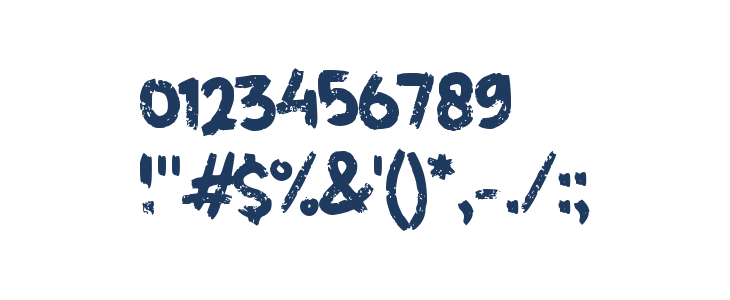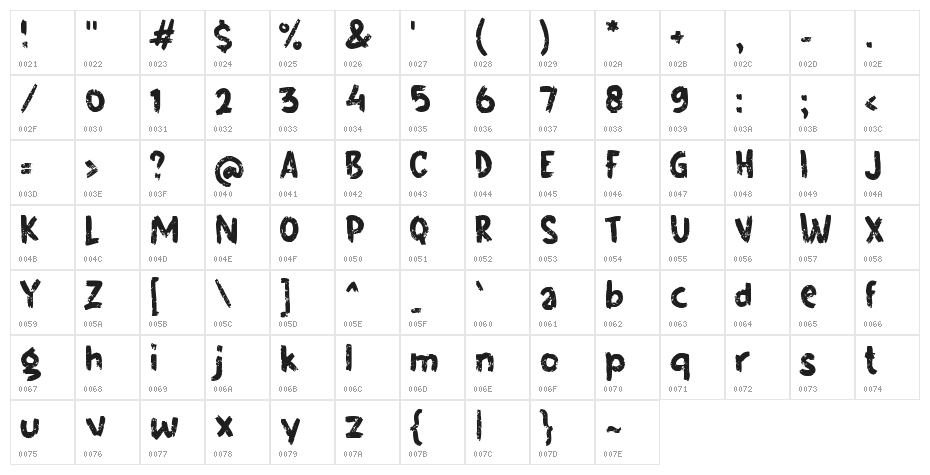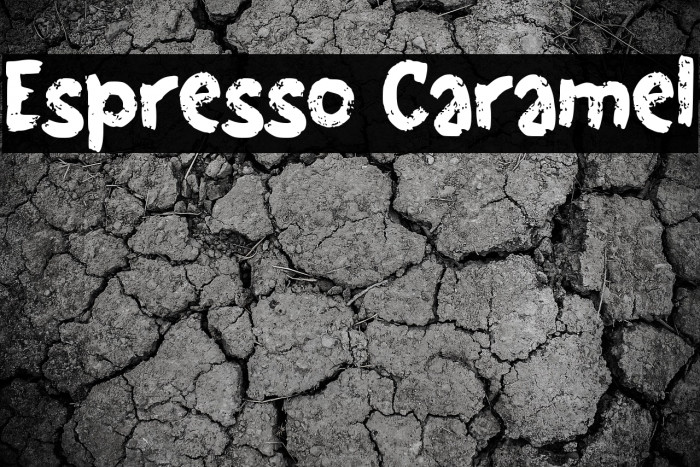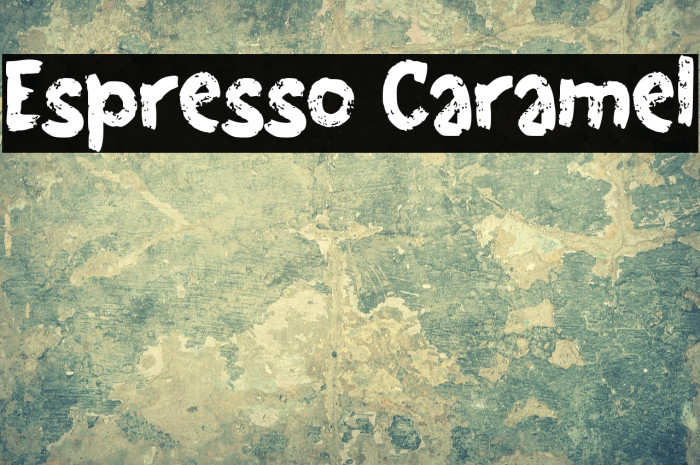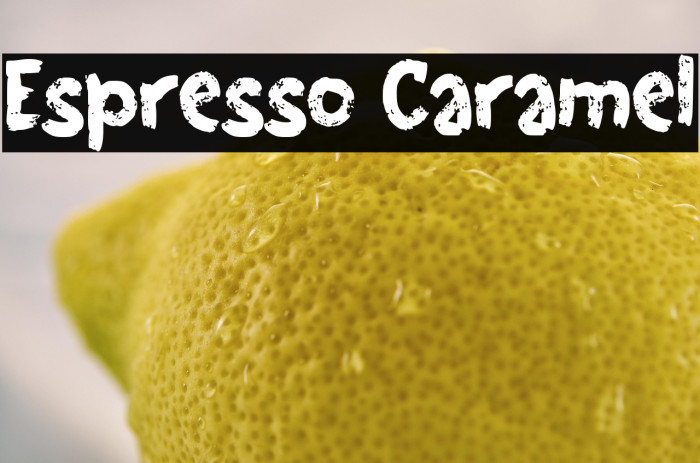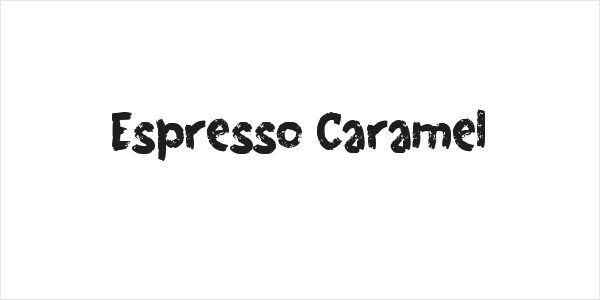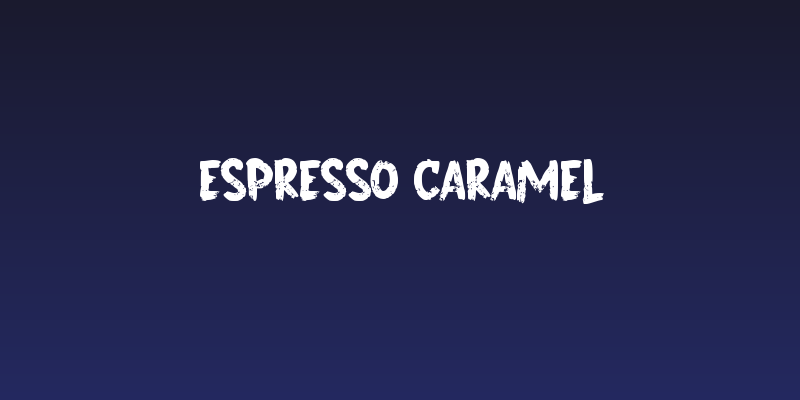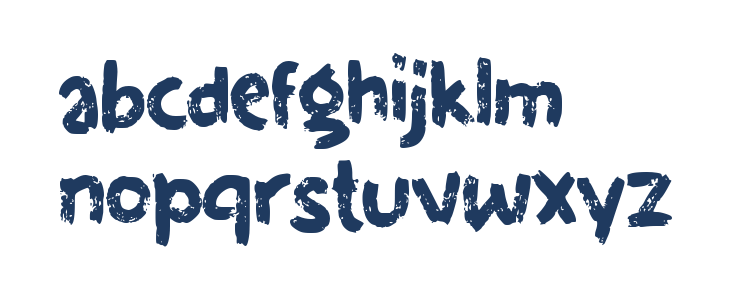
Espresso Caramel Font
Espresso Caramel Description
This font features a bold, distressed style with a textured, grunge appearance. The characters are irregular and rugged, giving a hand-painted or graffiti-like effect. The uppercase and lowercase letters maintain a consistent roughness, while the numbers and special characters follow the same aesthetic. The font's unique style makes it stand out, with each character appearing as if it has been stamped or brushed with ink, creating a dynamic and energetic look.
| Overall Style | Grunge, Urban, Energetic |
| Proposed Projects | Ideal for album covers, posters, streetwear branding, and edgy graphic designs. |